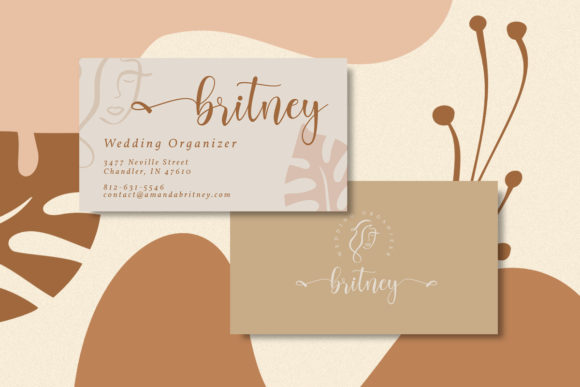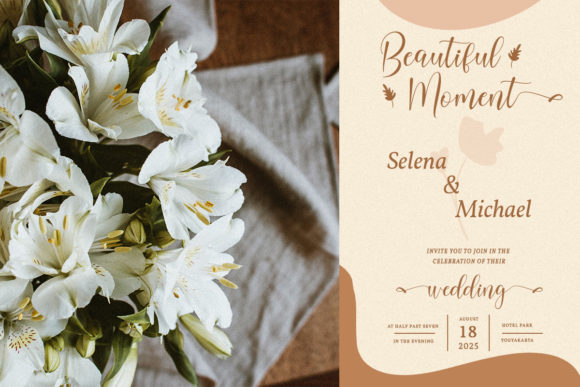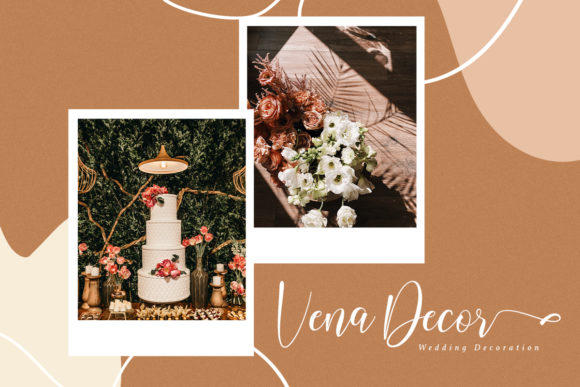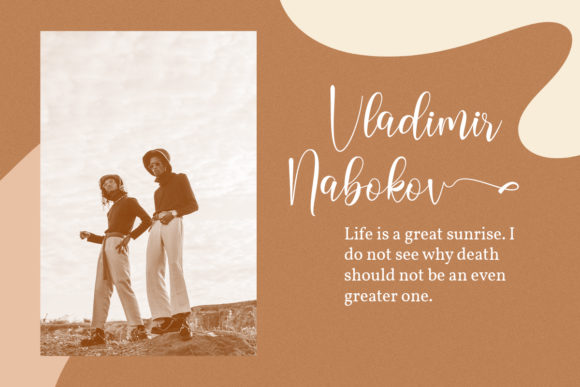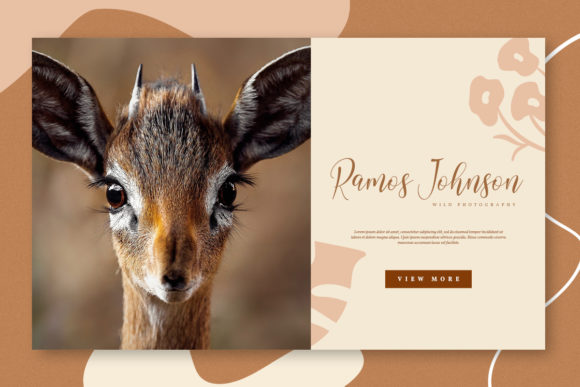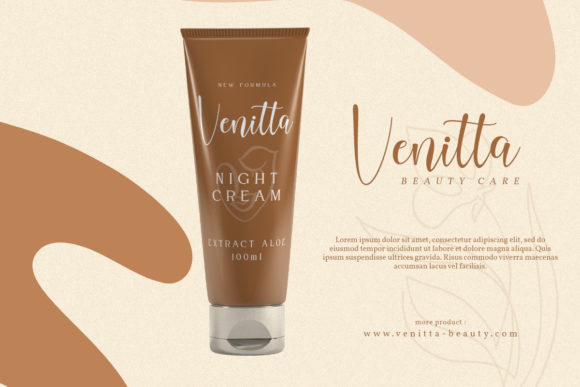
Introduction to Sandreya Font
Sandreya simplifies elegance into one truly outstanding handwritten font.
It maintains its classy calligraphic influences while feeling contemporary and fresh This versatility will appeal to a wide range of crafty ideas, from letterheads and titles, to stationery.
Key Features of Sandreya Font